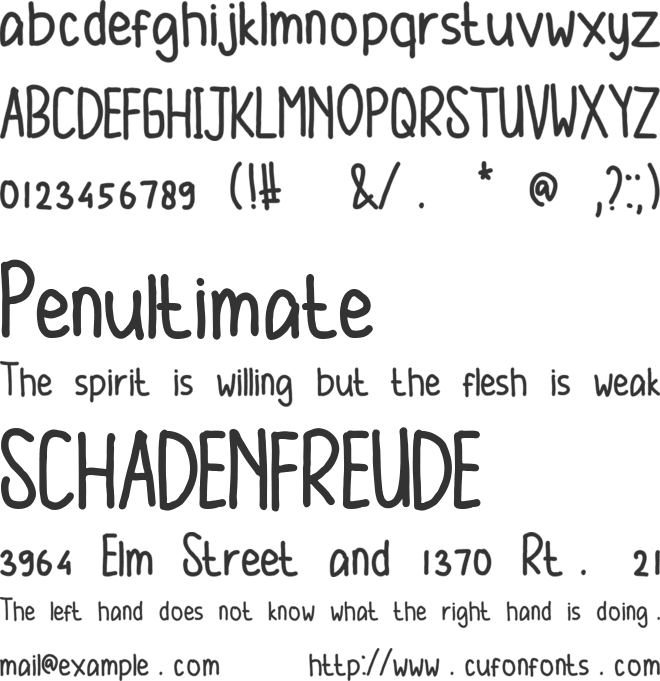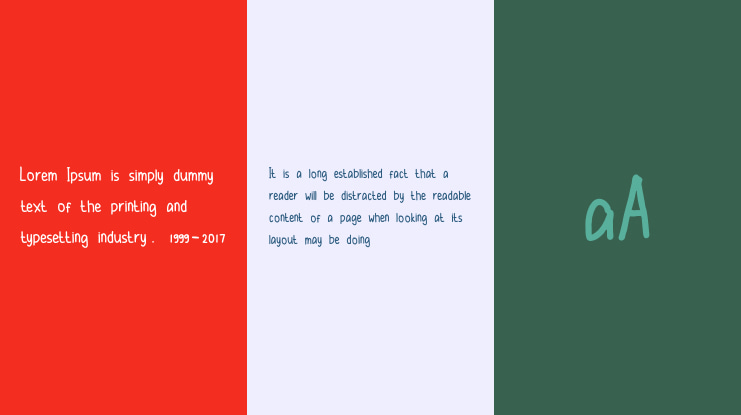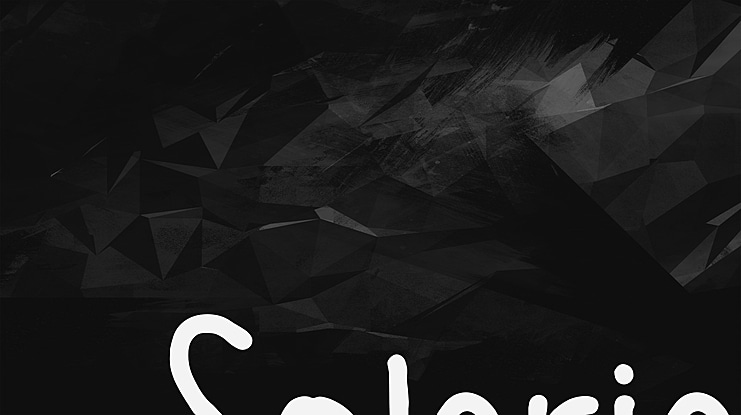
Solaria Font
Solaria is a sweet and friendly handwritten font. Its natural and unique style makes it incredibly fitting to a large pool of designs. It is the best choice for creating eye catching logos, branding and quotes.